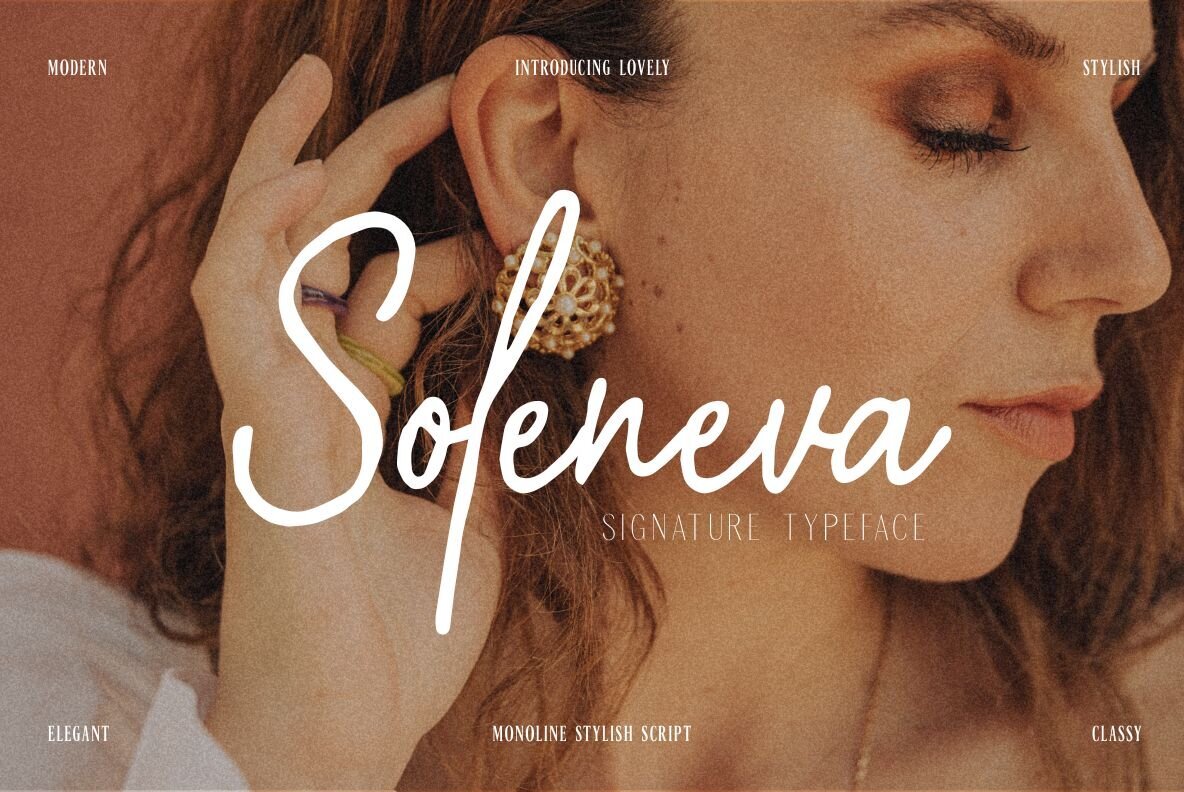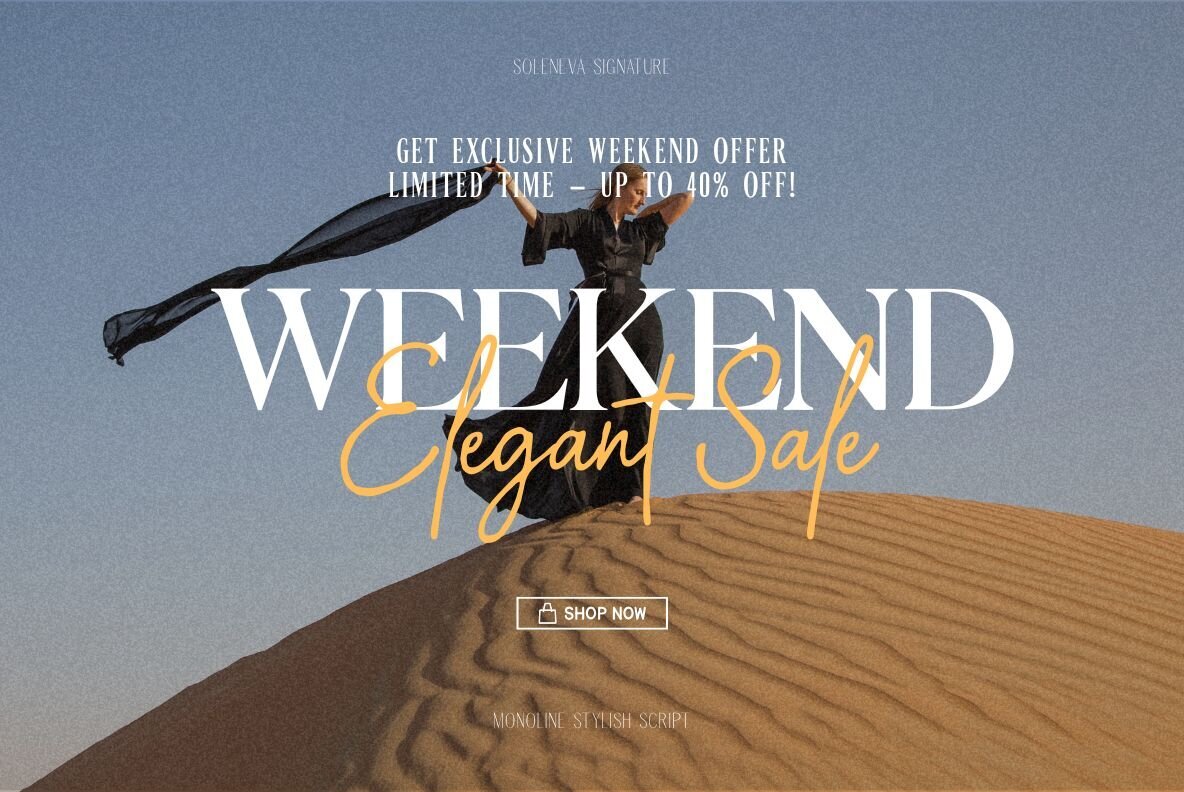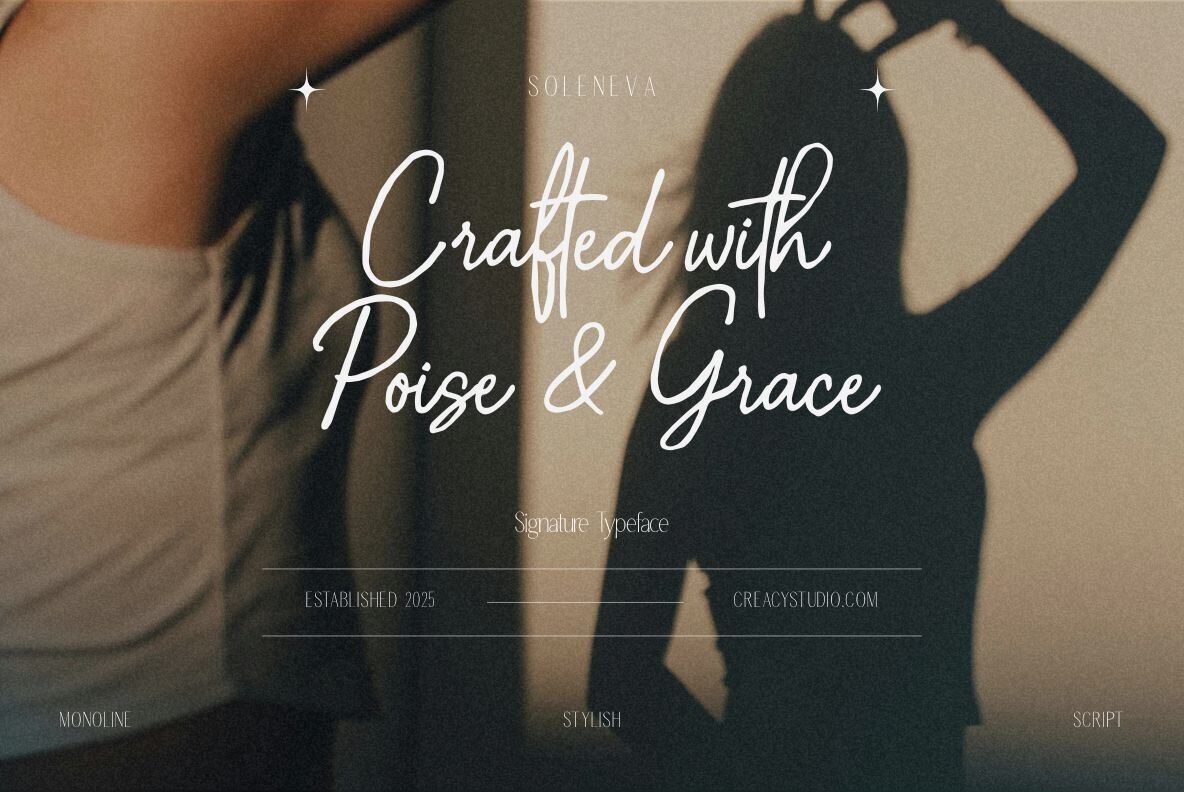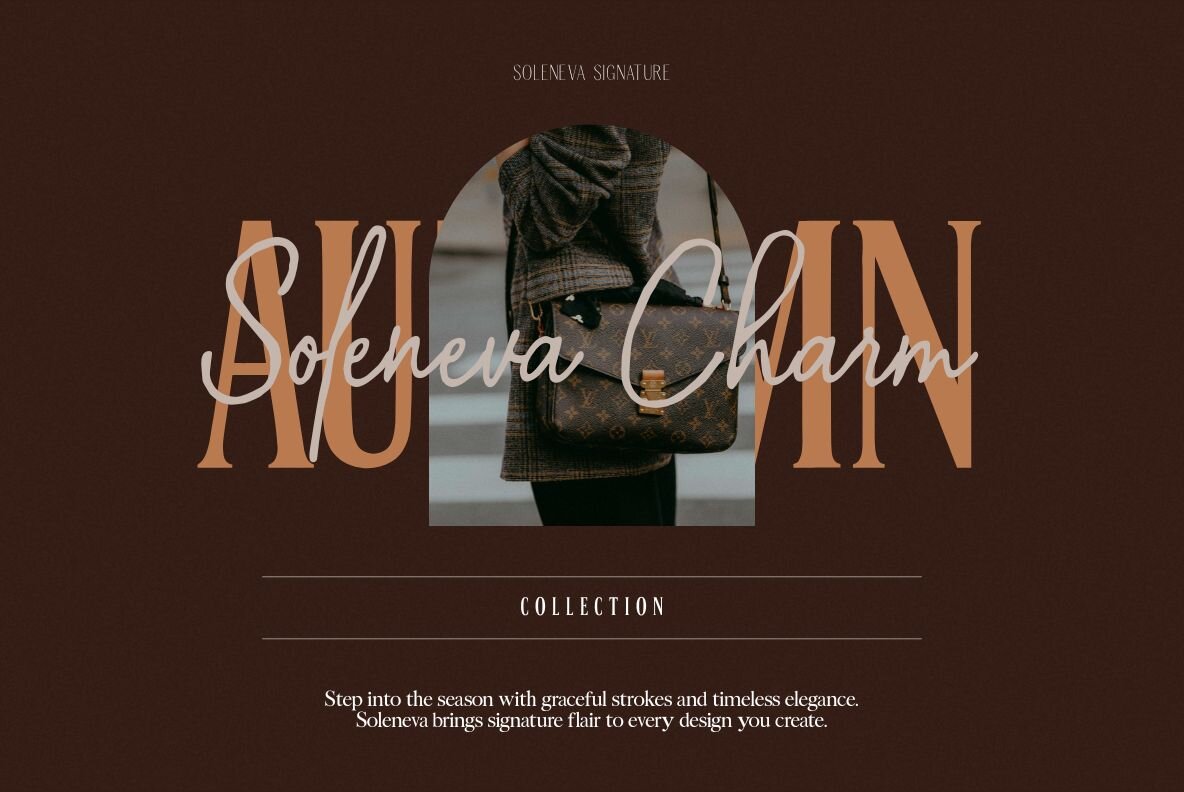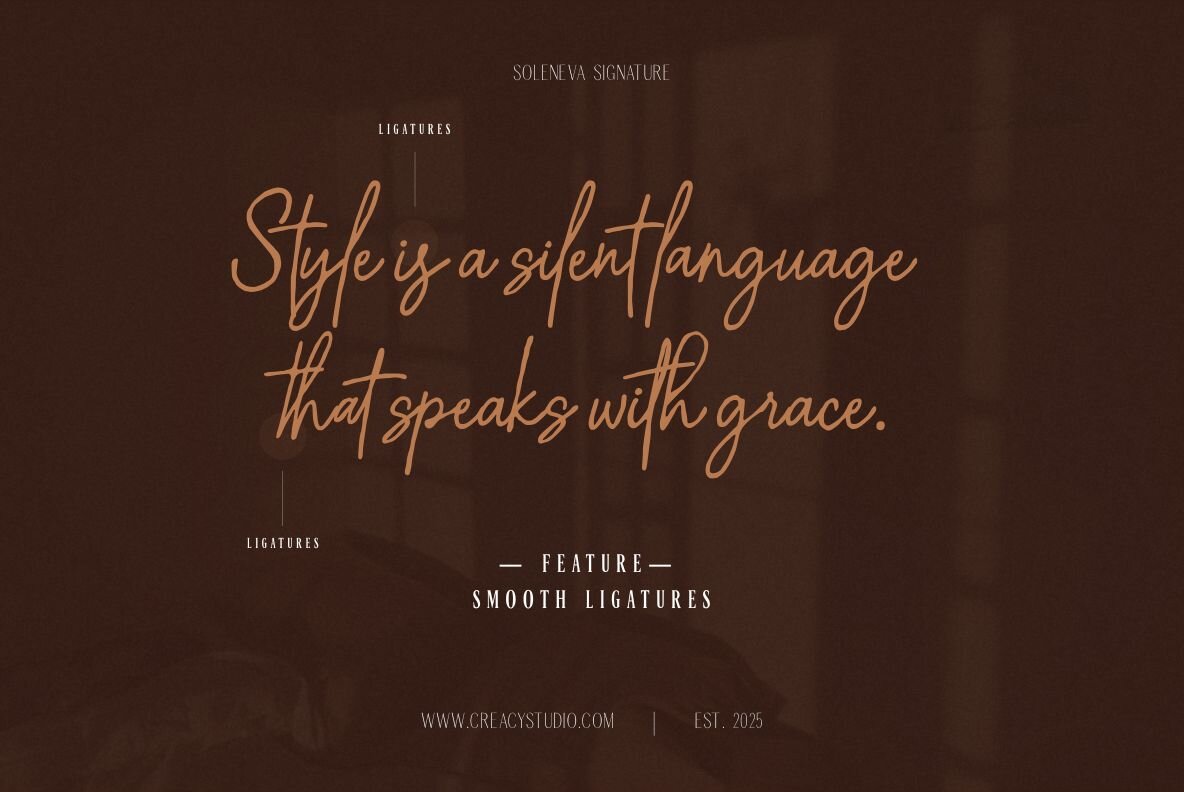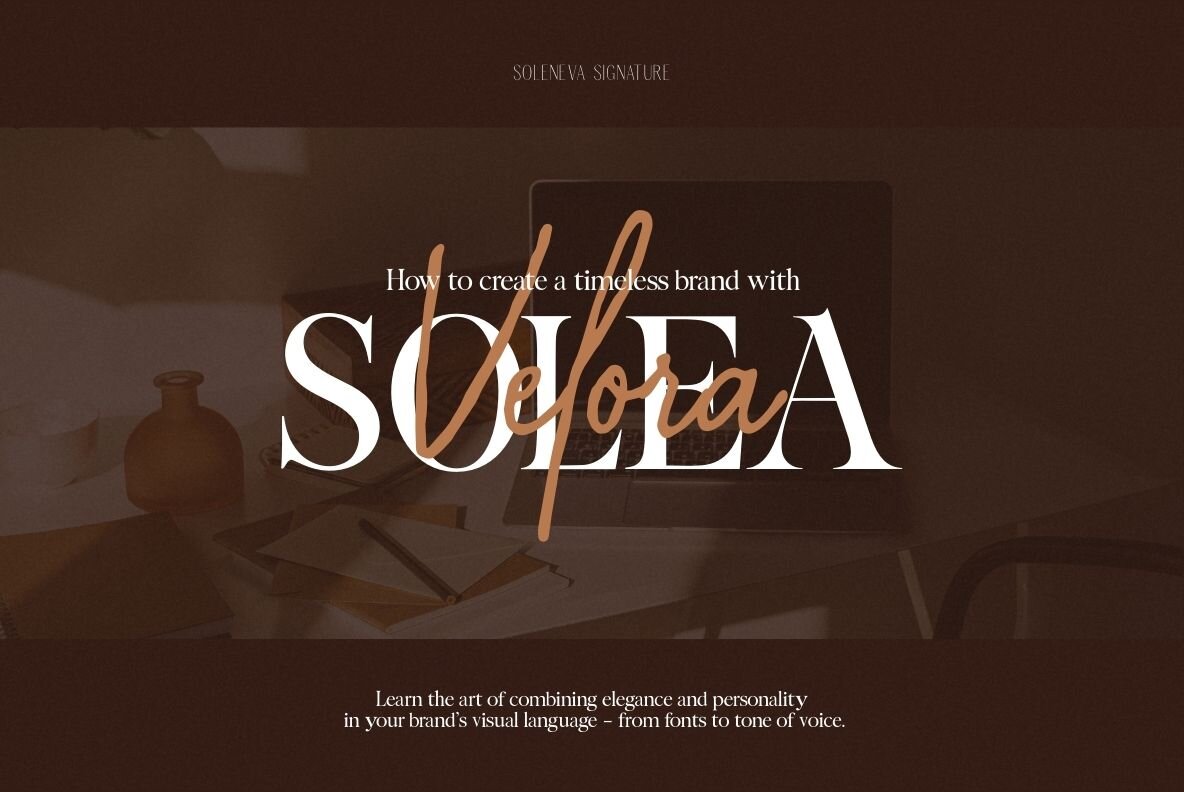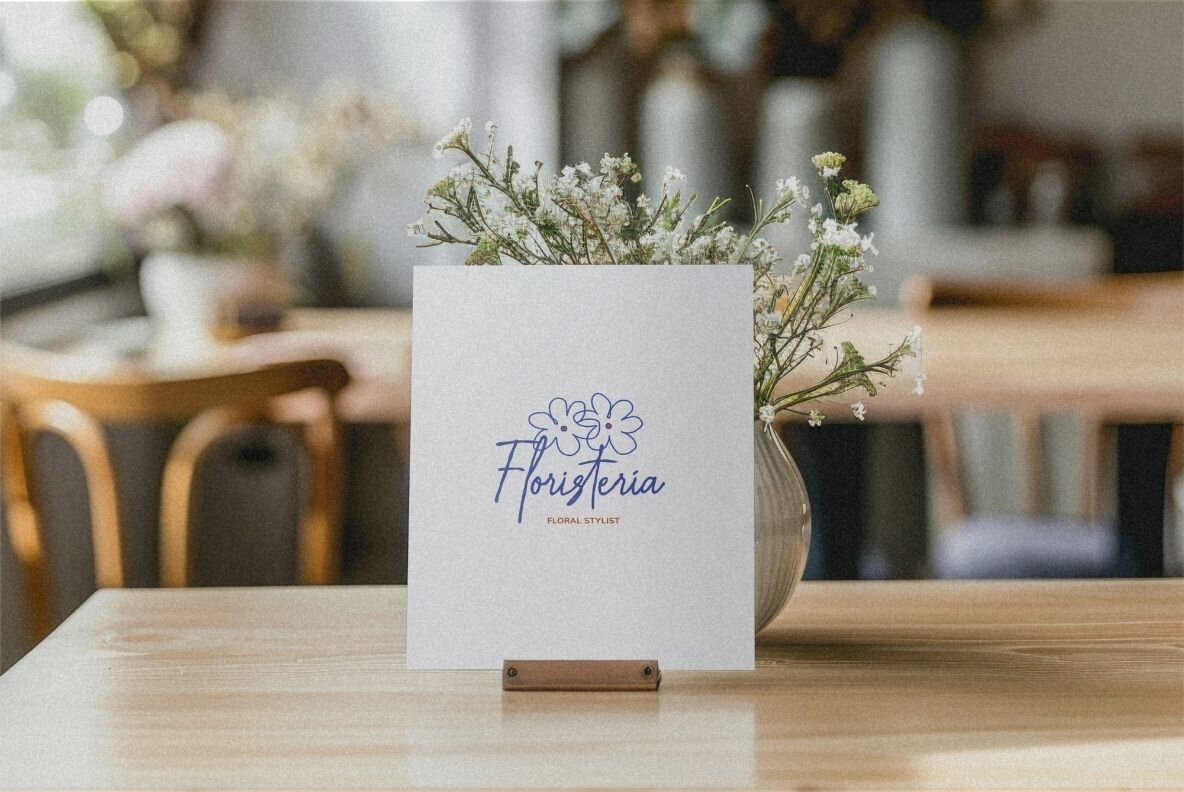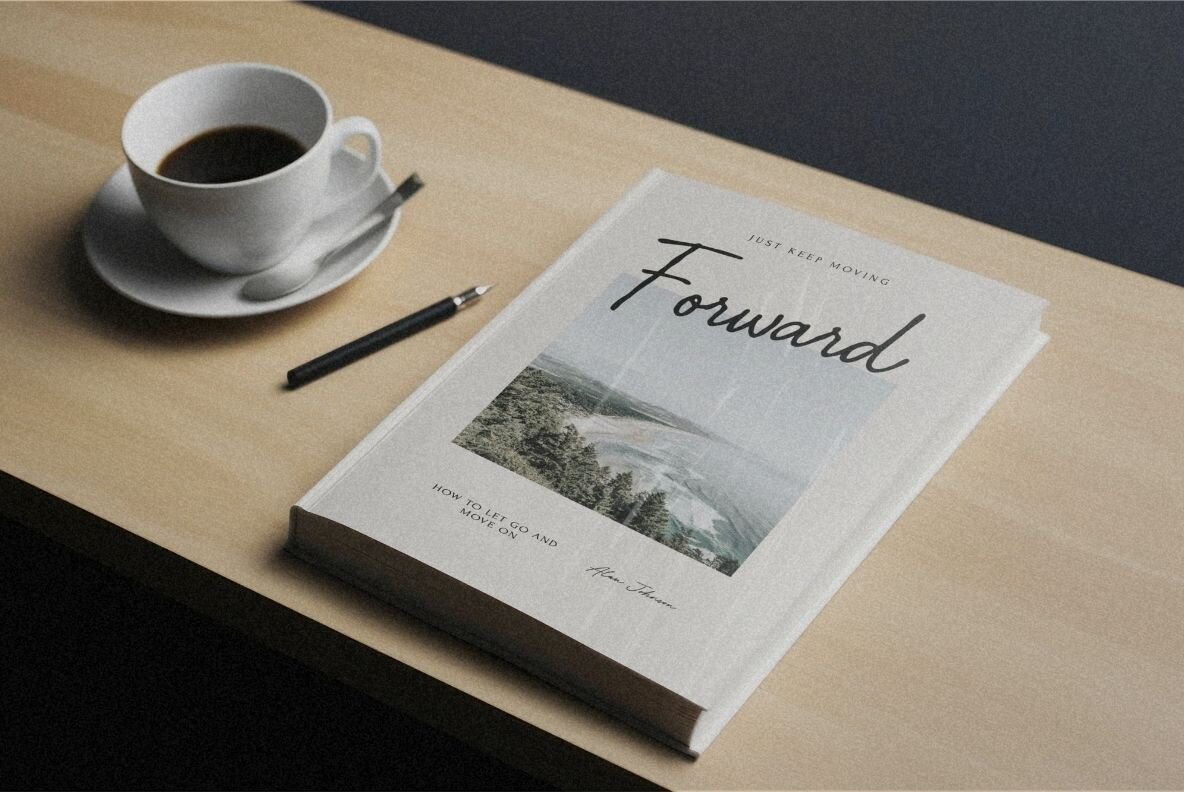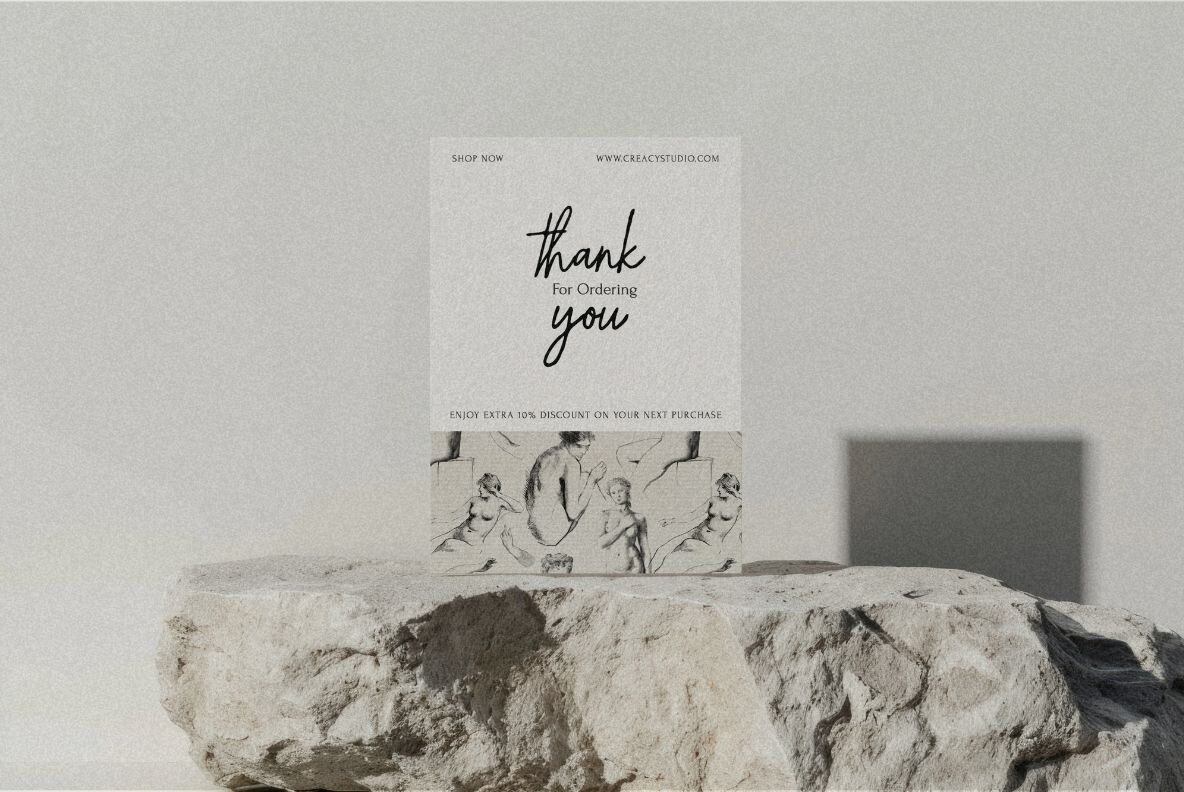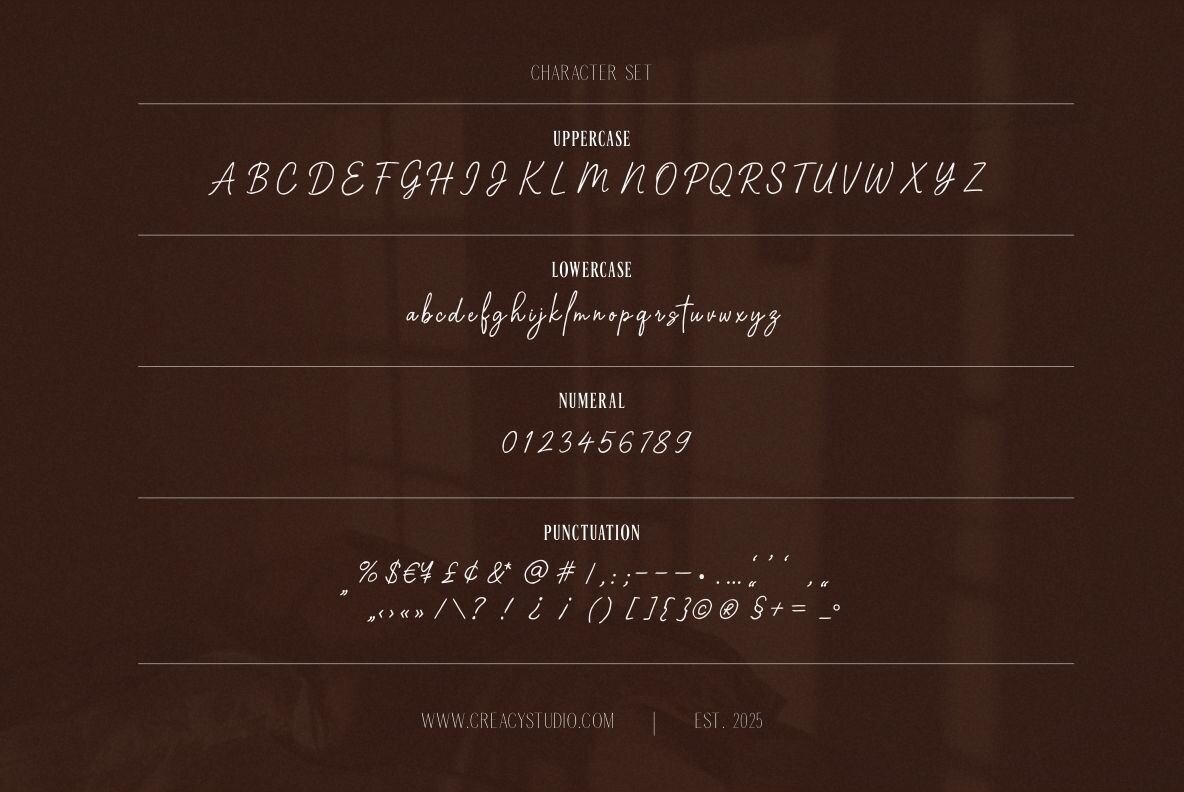
Soleneva Font
Soleneva offers a touch of sophistication through its stylish monoline script design. With graceful curves and timeless appeal, it’s the ideal choice for high-end branding and elegant invitations. This font seamlessly combines charm and elegance, making it a versatile option for many modern design projects. The delicate strokes of Soleneva impart both personality and class, perfect for fashion, luxury branding, and photography. Its blend of elegance and chic aesthetics makes it indispensable wherever sophistication is paramount.Soleneva: Elegant Monoline Script